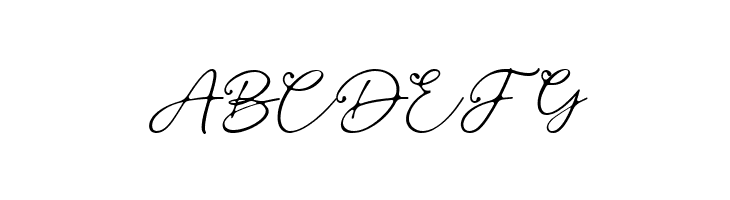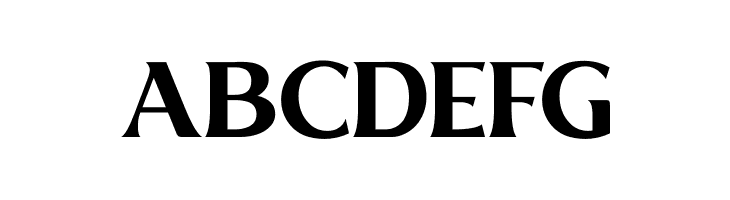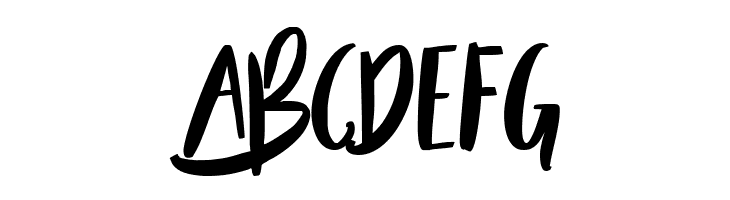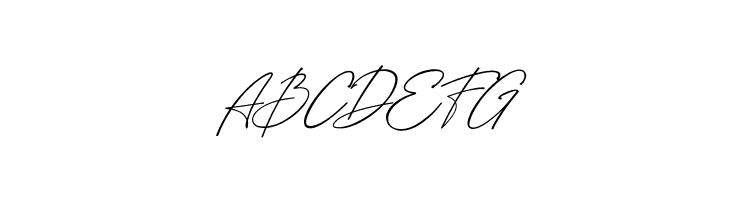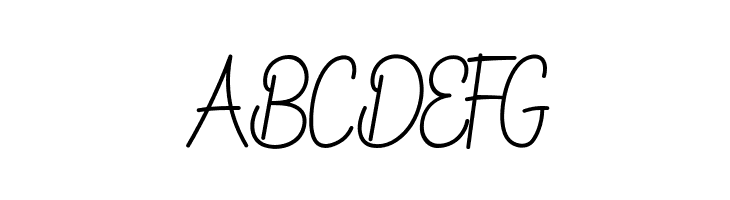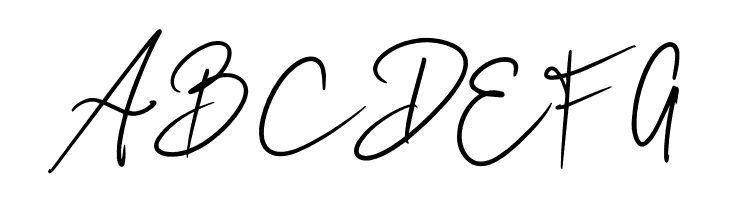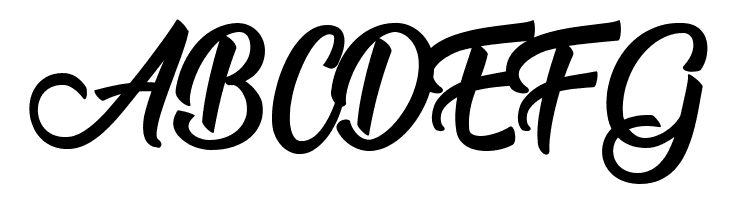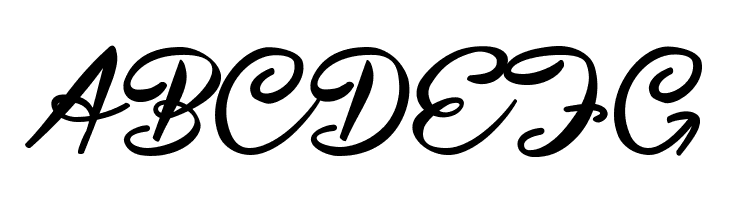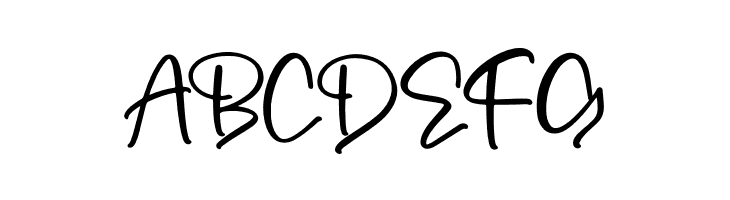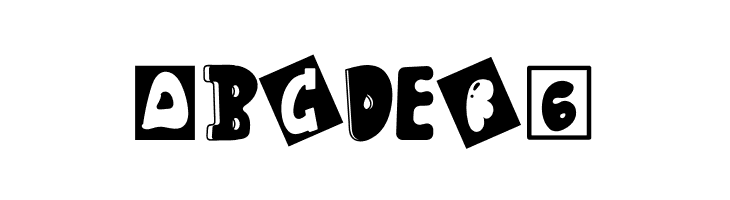
An elegant script font with flowing, decorative cursive letters.
A whimsical, cursive font with a flowing, handwritten style.
A modern script font with elegant, flowing cursive lines.
A graceful script font with flowing, cursive letters and a sophisticated style.
A playful, whimsical script font with a handwritten feel.
A graceful script font with flowing, cursive strokes and elegant design.
A playful, handwritten font with smooth curves and a casual style.
An elegant script font with flowing cursive letters and intricate swashes.
A bold, playful script font with a handwritten style.
A playful and flowing script font with smooth, rounded edges and interconnected letters.
A playful and elegant script font with a handwritten style.
A bold, dynamic serif font with sharp serifs and a slightly condensed form.
An elegant and flowing script font with graceful, cursive letterforms.
A playful and elegant script font with bold, flowing characters.
A bold, expressive handwritten font with a playful and artistic flair.
An elegant, cursive font with fluid, connected strokes.
An elegant script font with flowing, ornate cursive letters.
A modern, handwritten font with elongated, elegant letters.
A flowing, cursive handwritten font with elegant connections and smooth strokes.
A lively, cursive font with a handwritten, dynamic style.
A playful, hand-drawn font with a textured, whimsical style.
A playful and elegant script font with a handwritten feel.
An elegant script font with flowing cursive and decorative flourishes.
A bold, flowing script font with elegant curves and a handwritten aesthetic.
A graceful and elegant cursive font with flowing, ornate lines.
A playful, handwritten font with a casual and elegant style.
A decorative font with elegant swashes and modern flair.
A bold, expressive handwritten font with smooth, flowing lines.
A playful, casual handwritten font with smooth, flowing lines.
A cursive, handwritten font with a dynamic and flowing style.
An elegant serif font with high contrast and classic design.
A graceful and elegant script font with flowing, connected characters.
A lively and expressive script font with fluid, dynamic strokes.
Elegant serif font with high contrast.